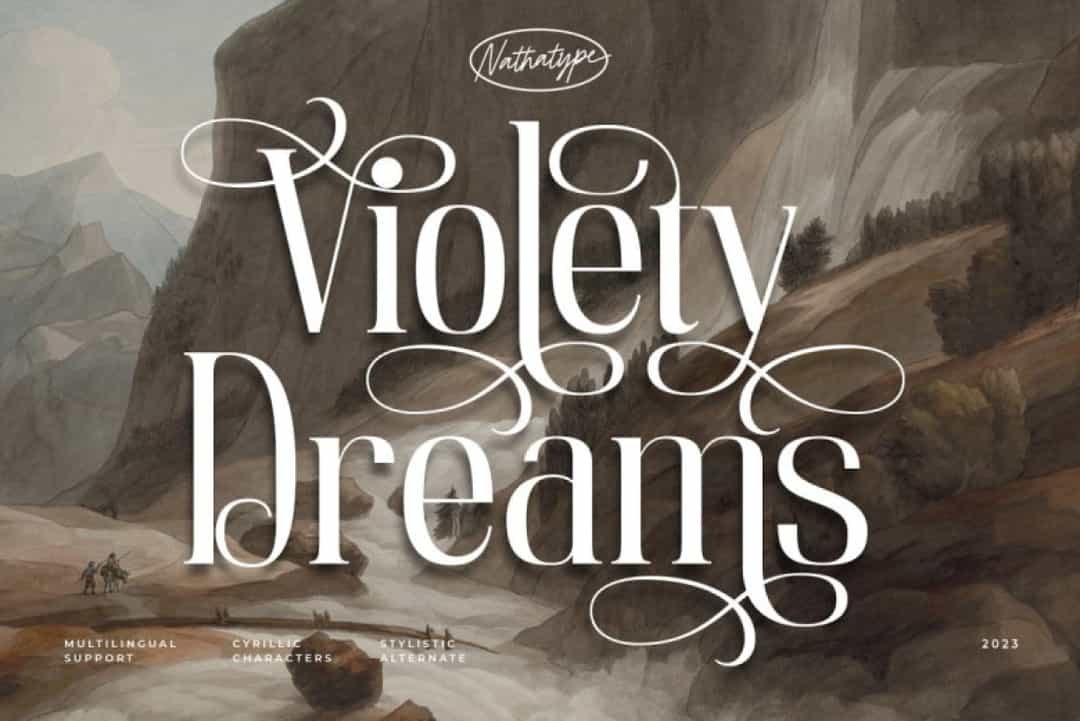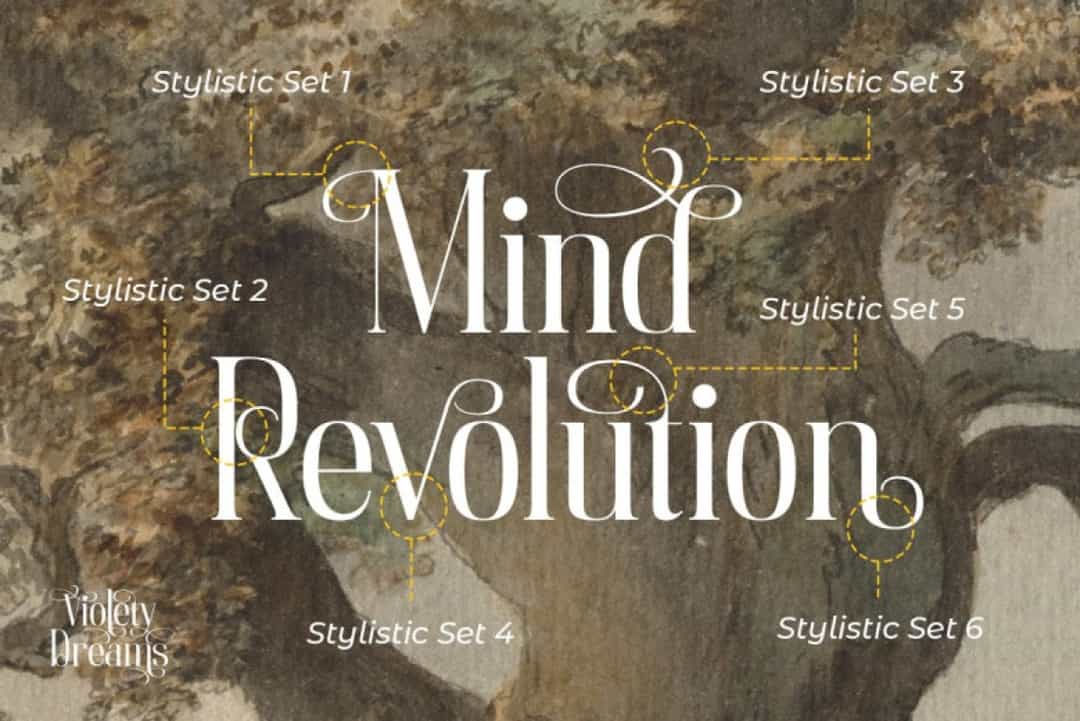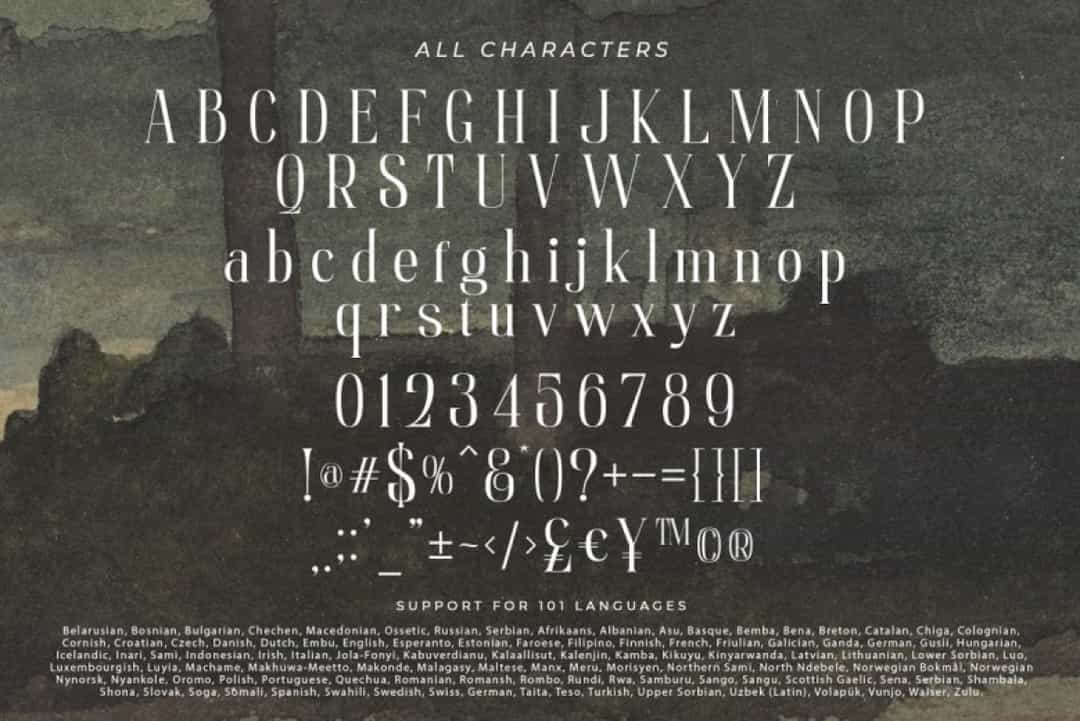
Violety Dreams is an elegant and tranquil serif typeface that will elevate any design to new heights of sophistication and beauty. Boasting classic letterforms with softly swung strokes on certain characters, Violety Dreams exudes peace and elegance while its uniqueness can be seen through elegantly swung strokes that adorn specific letters to add fun and elegance. These extensions create the impression of fluidity while simultaneously capturing beauty and grace.